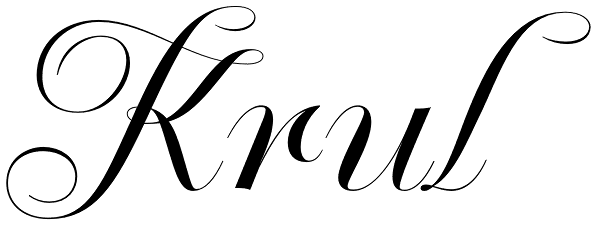
Krul
‘Krul’ is a typographic interpretation of the lettering style created by Dutch letter painter Jan Willem Joseph Visser at the end of the 1940s, which decorated the traditional brown bars of Amsterdam. In the beginning, these letters were strongly...